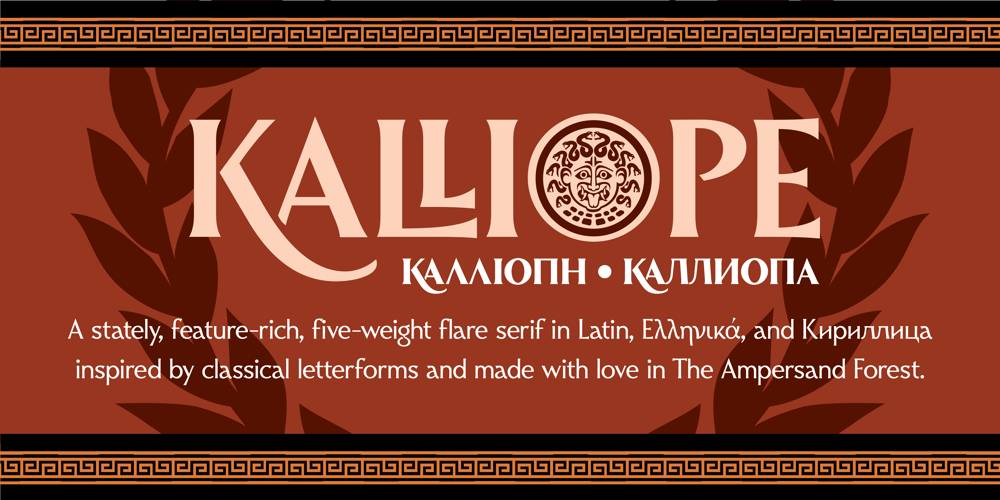
Kalliope Font Family was designed by DC Scarpelli and published by The Ampersand Forest. Kalliope contains 5 styles and family package options. Named for the “Golden-Voiced” Muse of Epic Poetry, Kalliope is a flare serif in five weights inspired by classical letterforms. Kalliope supports Latin, Cyrillic, and both Mono- and Polytonic Greek.Great for uses from display all the way to large text, Kalliope is packed full of stylistic alternates, discretionary ligatures, and a slew of ornaments and borders!